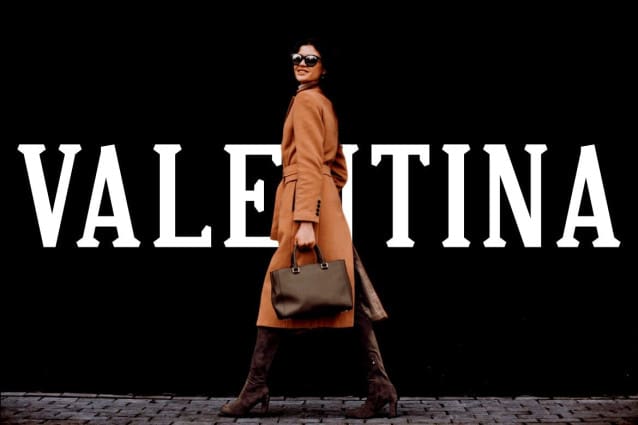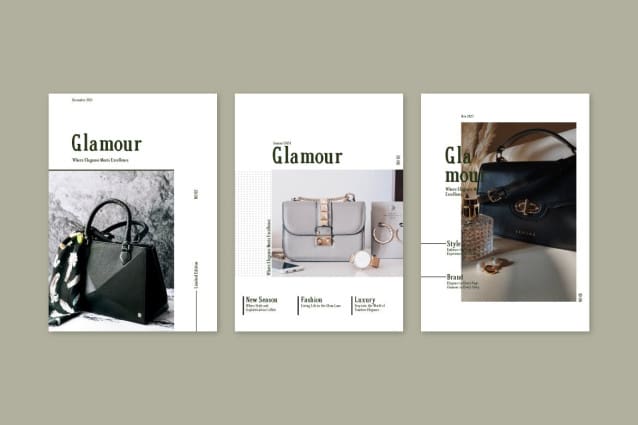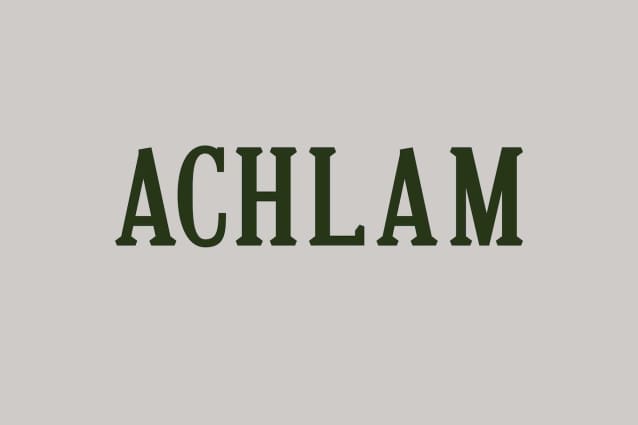
Achlam Font
Achlam Font is a Serif font that seamlessly combines the beauty of classic design with modern elements. This font exudes a clean and elegant aesthetic, making it suitable for a variety of design purposes, whether for print or digital display.
Achlam has a unique feature that sets it apart from traditional Serif Fonts. Its legs are designed with a contemporary twist, adding a new modern nuance to the font. The clean lines and smooth angles at the bottom of its characters create a unique aesthetic, making Achlam the ideal choice for those looking for something distinctive in the world of Serif Fonts.
With its elegant design, clean simplicity, and modern touch, Achlam is the ideal choice for design projects that require a Serif font style that remains current and unique.